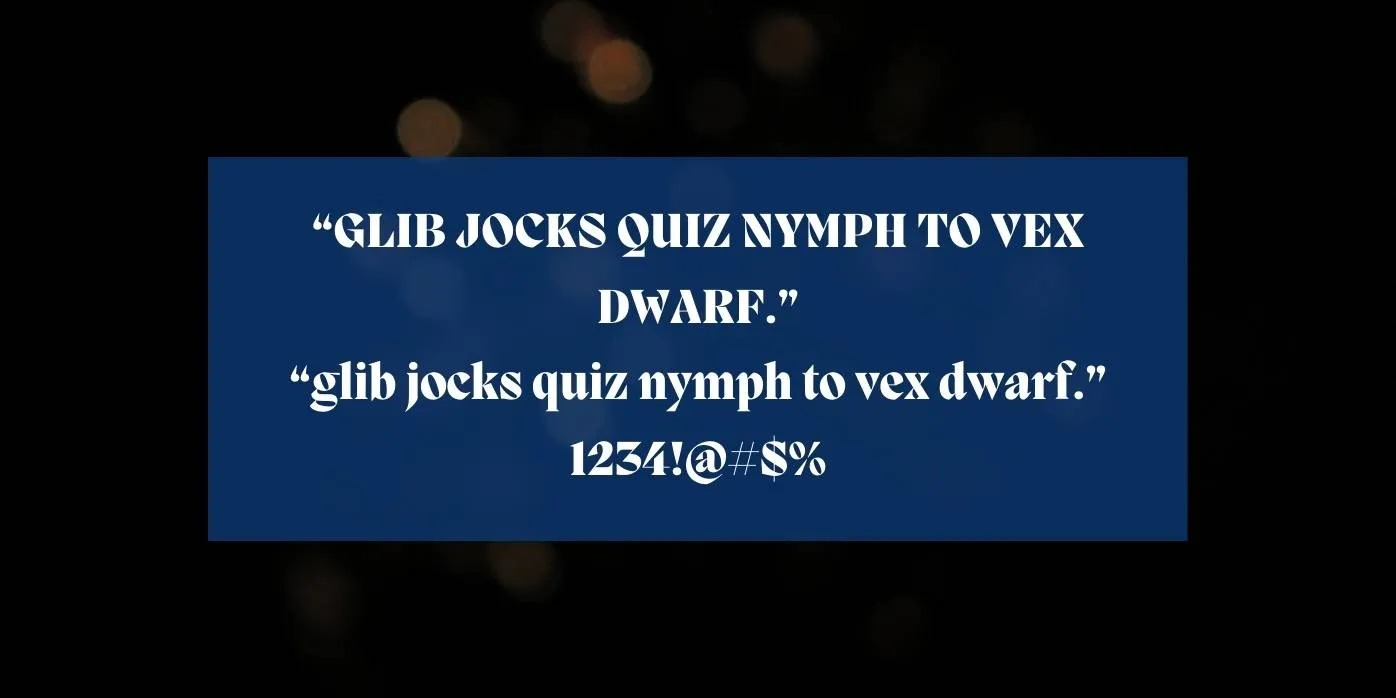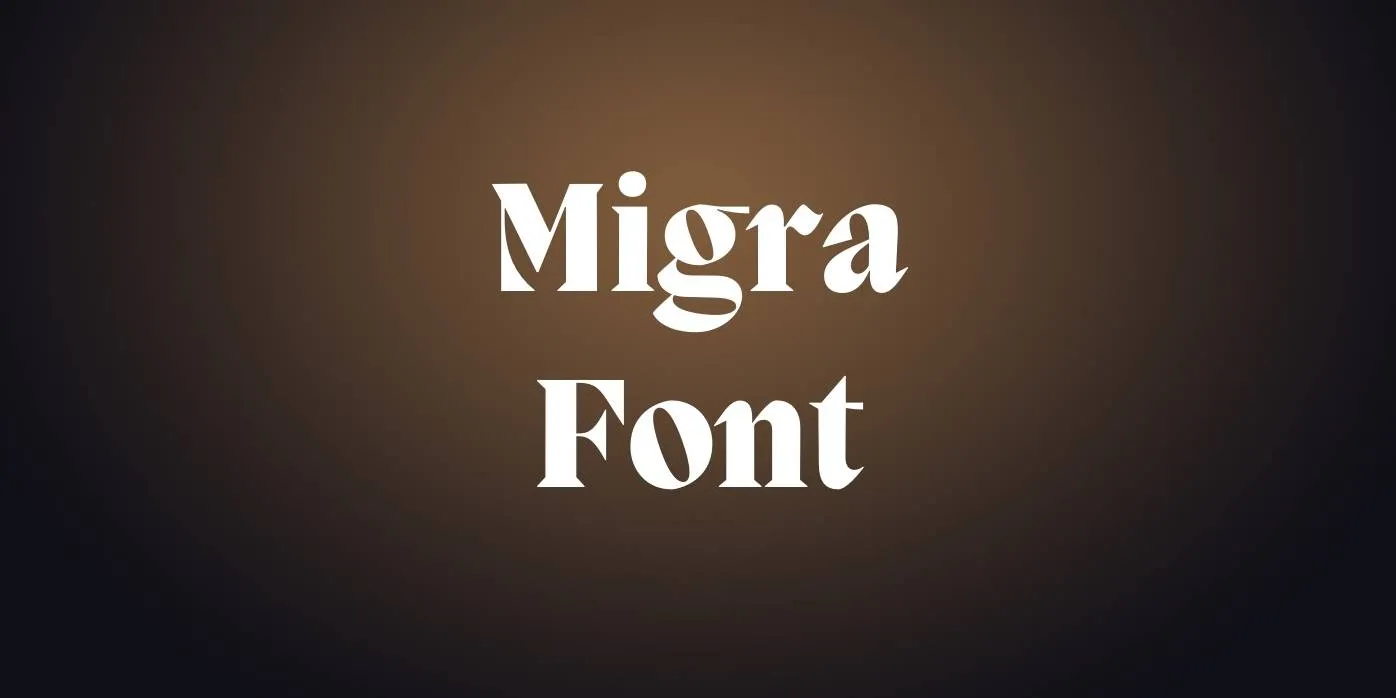
Migra Font
Today, we present a tremendous typeface named Migra Font. It belongs to the serif font family. This stunning typeface was designed by Rene Bieder and published by Type Mates. It is well suitable for CSS and HTML.
Migra Font is a stylish serif typeface with an elegant, yet modern touch. It comes in four weights (light, regular, medium, and bold), each with matching italics. The typeface also includes small caps and old-style figures. You can also use it for Adobe and Canva.
Migra Font is perfect for branding, headlines, logotypes, and short paragraphs of text. It’s also a great choice for print design, such as magazines, books, and stationery. To use this classy font in your next design project, start by downloading the font files from our website.